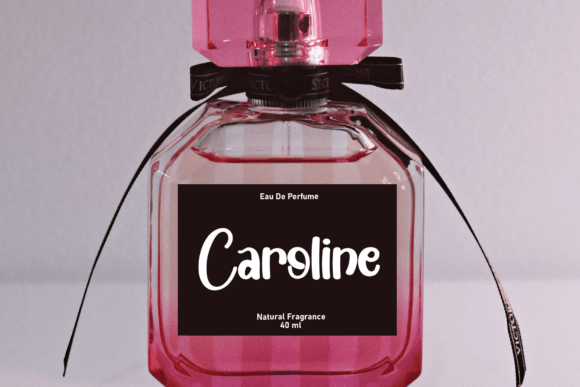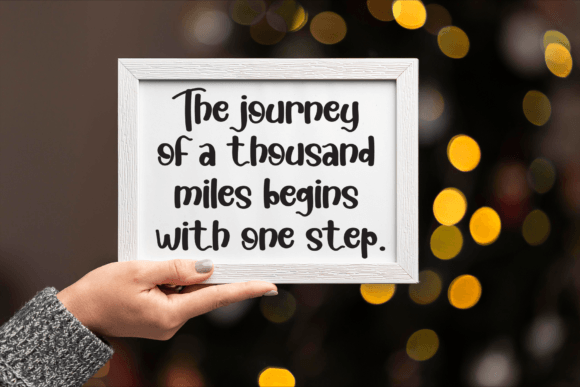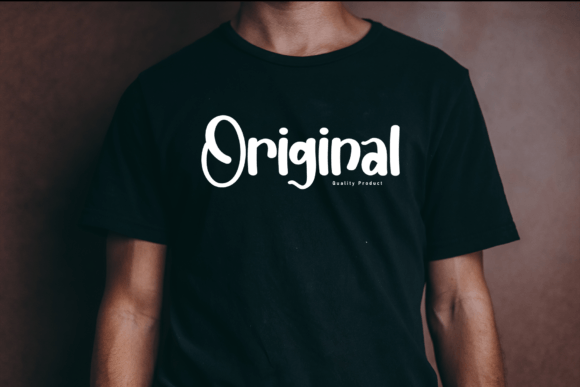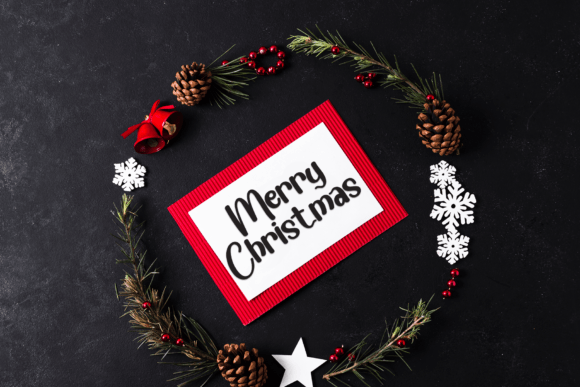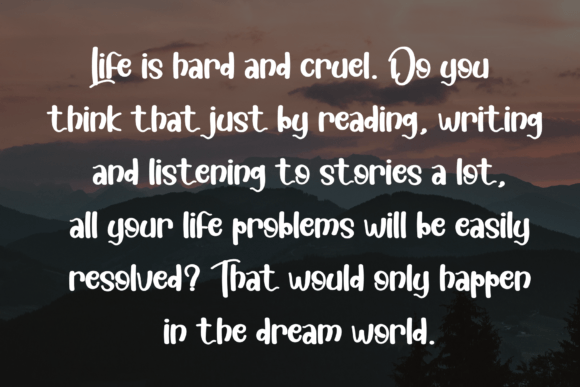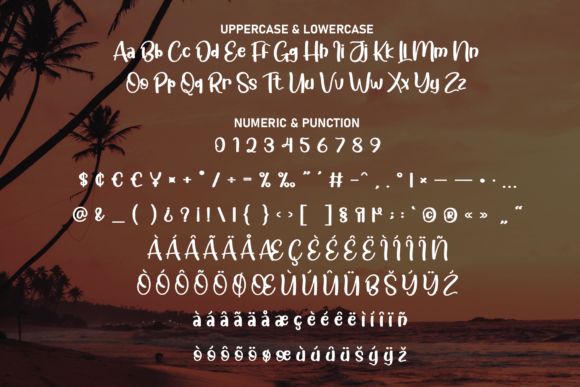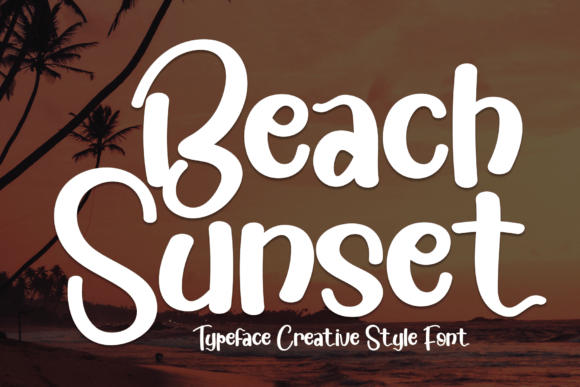
Beach Sunset Font: A Charming Handwritten Style for Your Design Projects
Are you looking for a font that exudes warmth, friendliness, and a touch of playfulness? Look no further than the Beach Sunset Font! This beautiful, handwritten font is perfect for adding a personal touch to your design projects, whether you’re creating wedding invitations, greeting cards, or any other type of creative work.
A Font that Captures the Essence of a Beach Sunset
The Beach Sunset Font is a charming and whimsical handwritten font that is sure to capture the essence of a warm summer evening. With its flowing curves and lines, this font oozes friendliness and approachability, making it perfect for designs that require a personal touch. Whether you’re looking to create a romantic wedding invitation or a fun and playful greeting card, this font is sure to bring a smile to the recipient’s face.
Ideal for Wedding Invitations and Cards
One of the key features of the Beach Sunset Font is its suitability for wedding invitations and cards. The font’s elegant yet playful style makes it perfect for couples who want to add a touch of whimsy to their special day. Imagine creating beautiful, handmade-style wedding invitations that set the tone for a romantic and unforgettable celebration. With the Beach Sunset Font, you can create stunning designs that will leave a lasting impression on your loved ones.
Adding a Touch of Fun to Your Design Projects
The Beach Sunset Font is not just limited to wedding invitations and cards. This versatile font can be used in a wide range of design projects, from party invitations and flyers to social media graphics and blog posts. The font’s playful style adds a dash of fun and personality to any design, making it perfect for crafters and designers who want to create engaging and memorable content.
Key Features of the Beach Sunset Font
- Charming and whimsical handwritten style: The Beach Sunset Font features a beautiful, handwritten style that is sure to capture the essence of a warm summer evening.
- Friendliness and approachability: The font’s flowing curves and lines make it perfect for designs that require a personal touch.
- Ideal for wedding invitations and cards: The font’s elegant yet playful style makes it perfect for couples who want to add a touch of whimsy to their special day.
- Versatile and easy to use: The Beach Sunset Font can be used in a wide range of design projects, from party invitations and flyers to social media graphics and blog posts.
Tips for Using the Beach Sunset Font
Here are a few tips for using the Beach Sunset Font in your design projects:
- Pair with complementary fonts: The Beach Sunset Font pairs well with clean and simple fonts, such as Arial or Helvetica. Experiment with different font combinations to find the perfect look for your design.
- Use in combination with beautiful imagery: The Beach Sunset Font is perfect for designs that feature beautiful imagery, such as beach scenes or floral patterns.
- Experiment with different colors: The Beach Sunset Font looks great in a range of colors, from soft pastels to bold and bright hues. Experiment with different colors to find the perfect look for your design.
The Beach Sunset Font is a charming and whimsical handwritten font that is perfect for adding a personal touch to your design projects. With its flowing curves and lines, this font oozes friendliness and approachability, making it perfect for designs that require a personal touch. Whether you’re creating wedding invitations, greeting cards, or any other type of creative work, the Beach Sunset Font is sure to bring a dash of fun and personality to your designs.